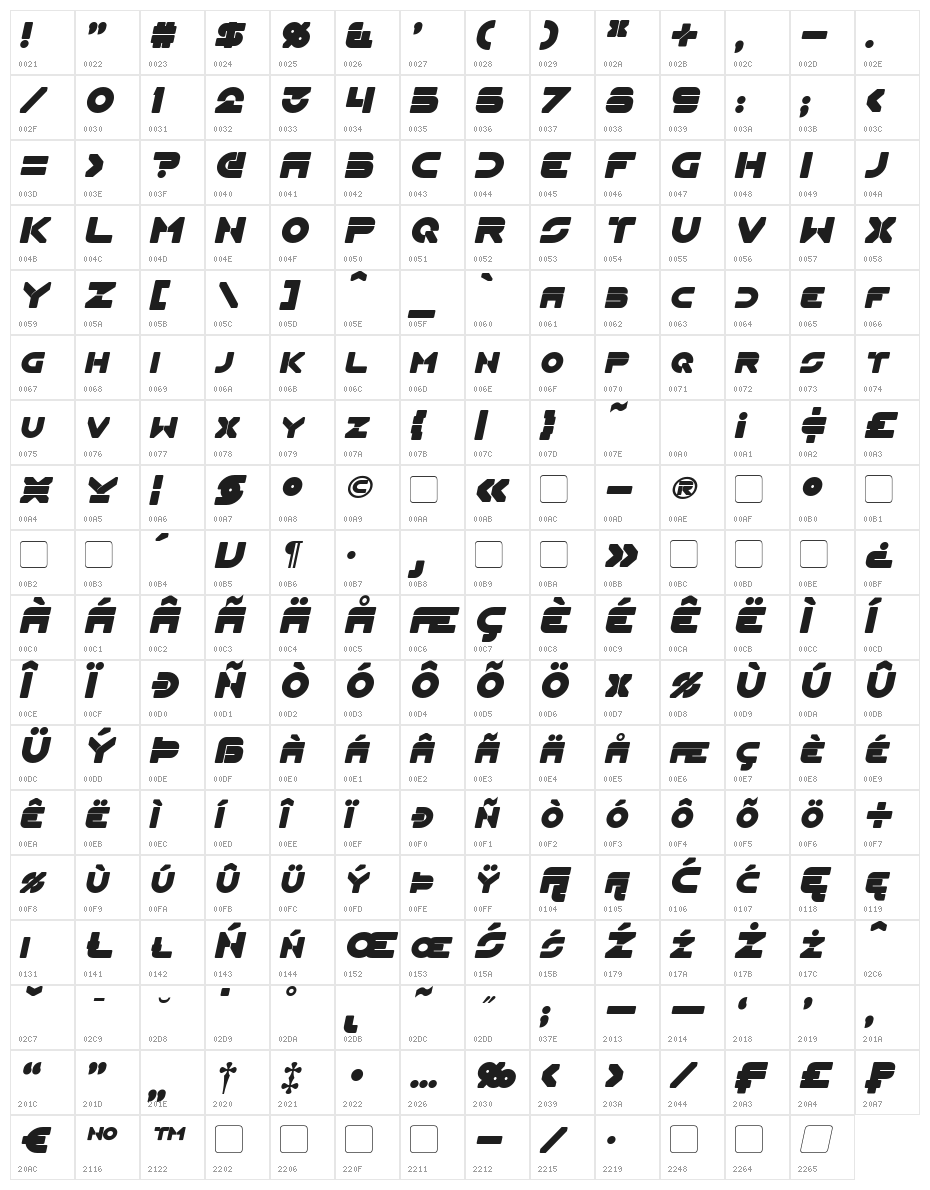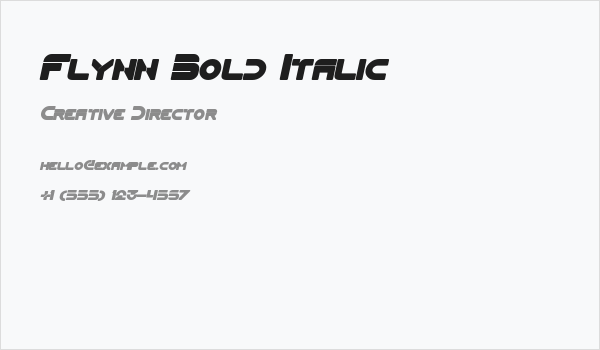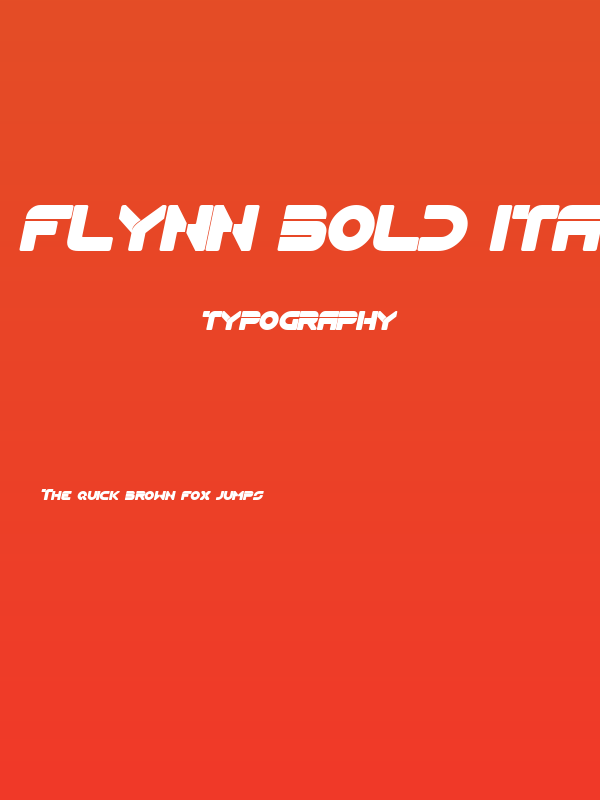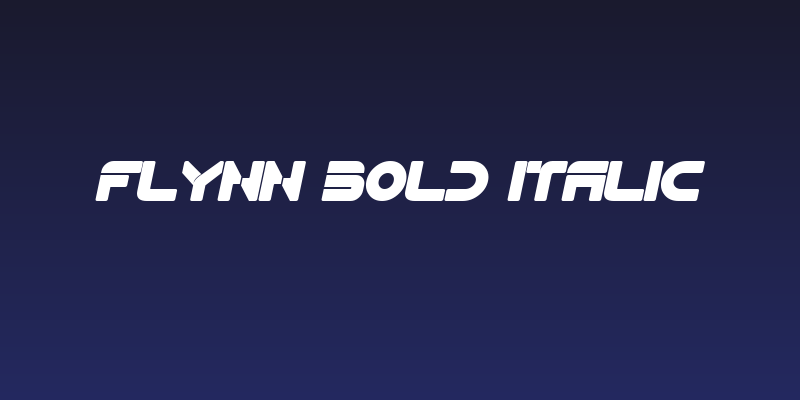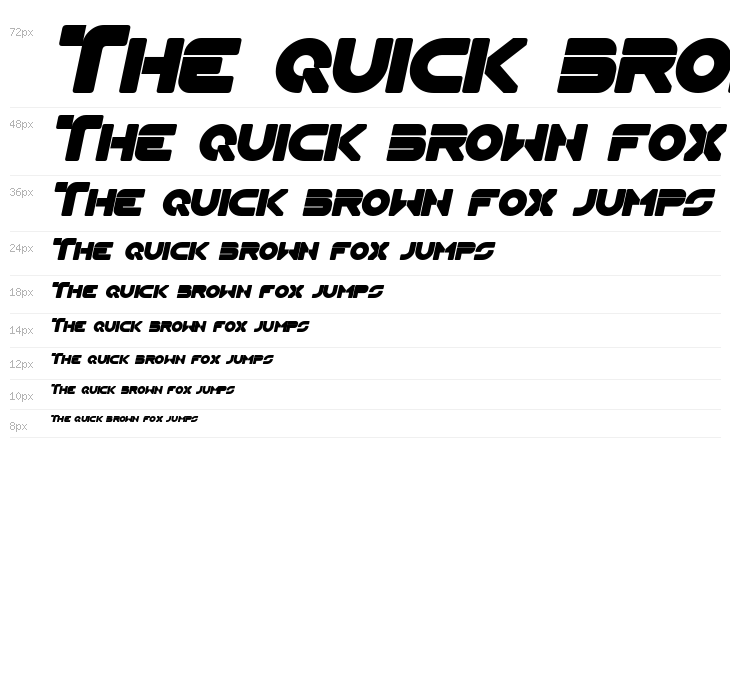
Flynn Bold Italic Font
Flynn Bold Italic Description
This font features a bold and italicized style with a futuristic and geometric appearance. The characters are constructed with thick, rounded strokes and have a distinct slant, giving them a dynamic and forward-moving look. The uppercase and lowercase letters maintain a consistent design, with the lowercase slightly smaller but equally bold. The numerals and special characters follow the same stylistic cues, ensuring uniformity across all glyphs. The font's design is highly legible, with each character clearly defined, making it suitable for attention-grabbing headlines or branding materials.
| Proposed Projects | Ideal for sci-fi themed projects, modern branding, technology logos, and dynamic headlines. |